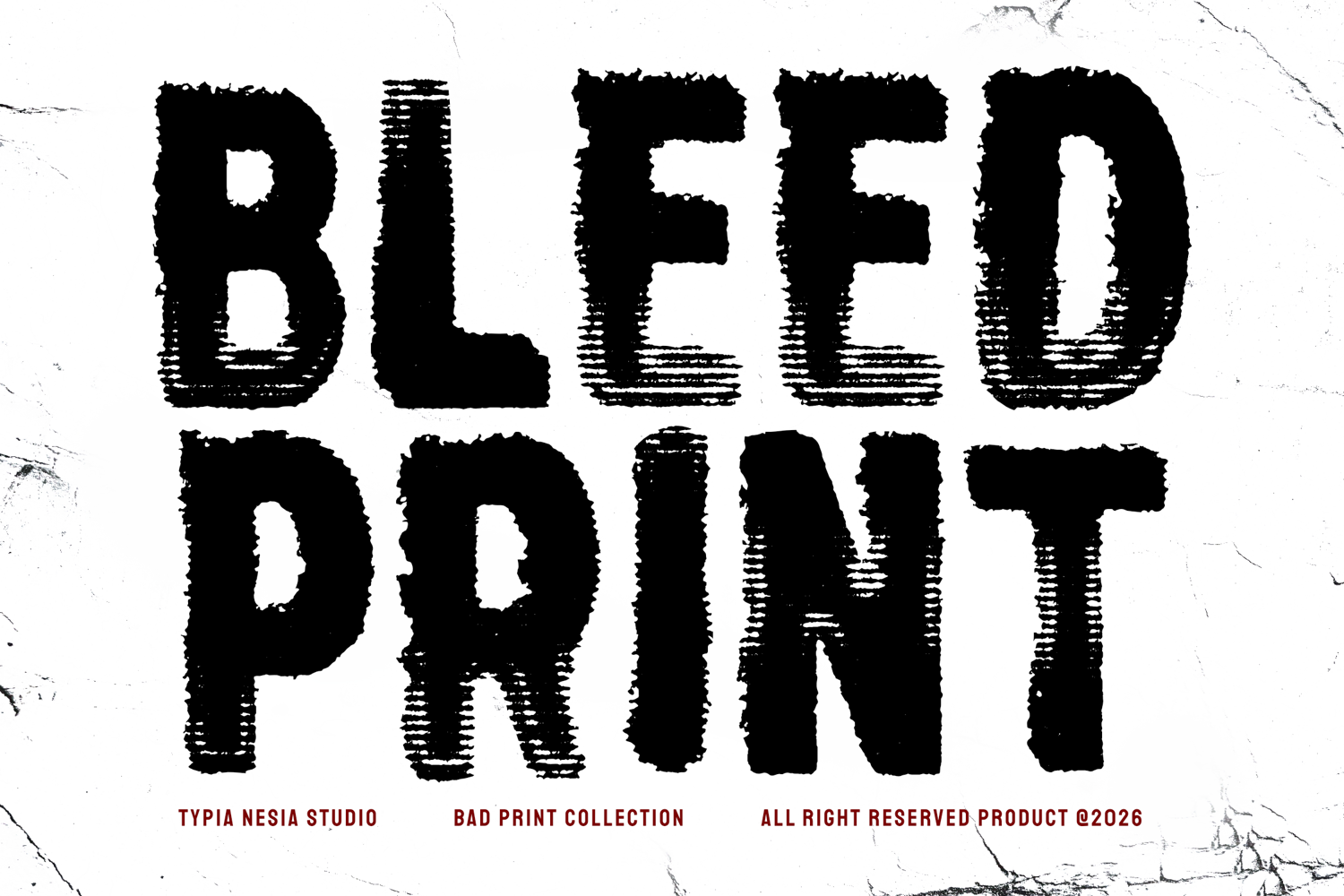
Bleed Print - Bad Print Bold Sans Font - Rough Grunge Sans Display Font
Bleed Print is a bold distressed sans serif font inspired by vintage ink bleed, worn stamps, and imperfect print textures. Designed with rough edges, grunge details, and bold letterforms, this typeface delivers a rugged, masculine, and retro look that feels raw and authentic. Its distressed effect captures the charm of old printing techniques, making Bleed Print perfect for logo design, labels, badges, posters, branding, packaging, vintage-inspired projects, and any project that needs a touch of textured and expressive character.
Make your design bold and raw with Bleed Print.